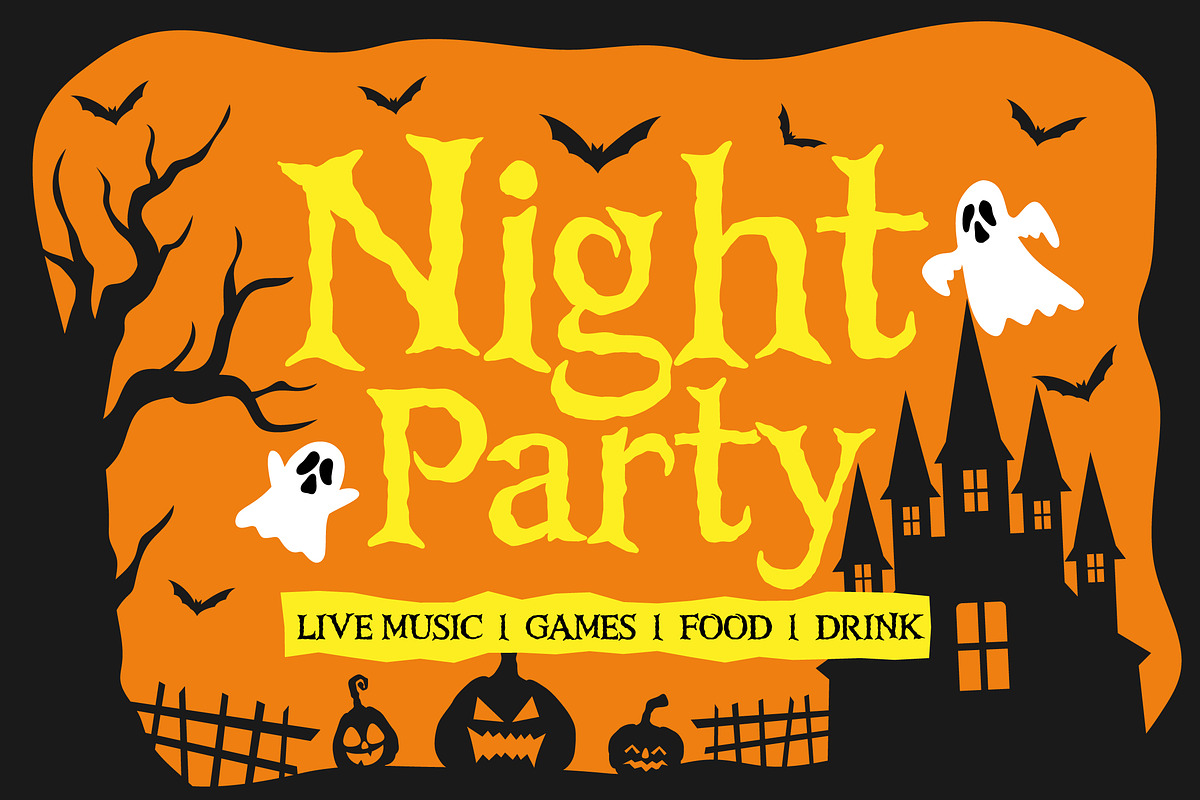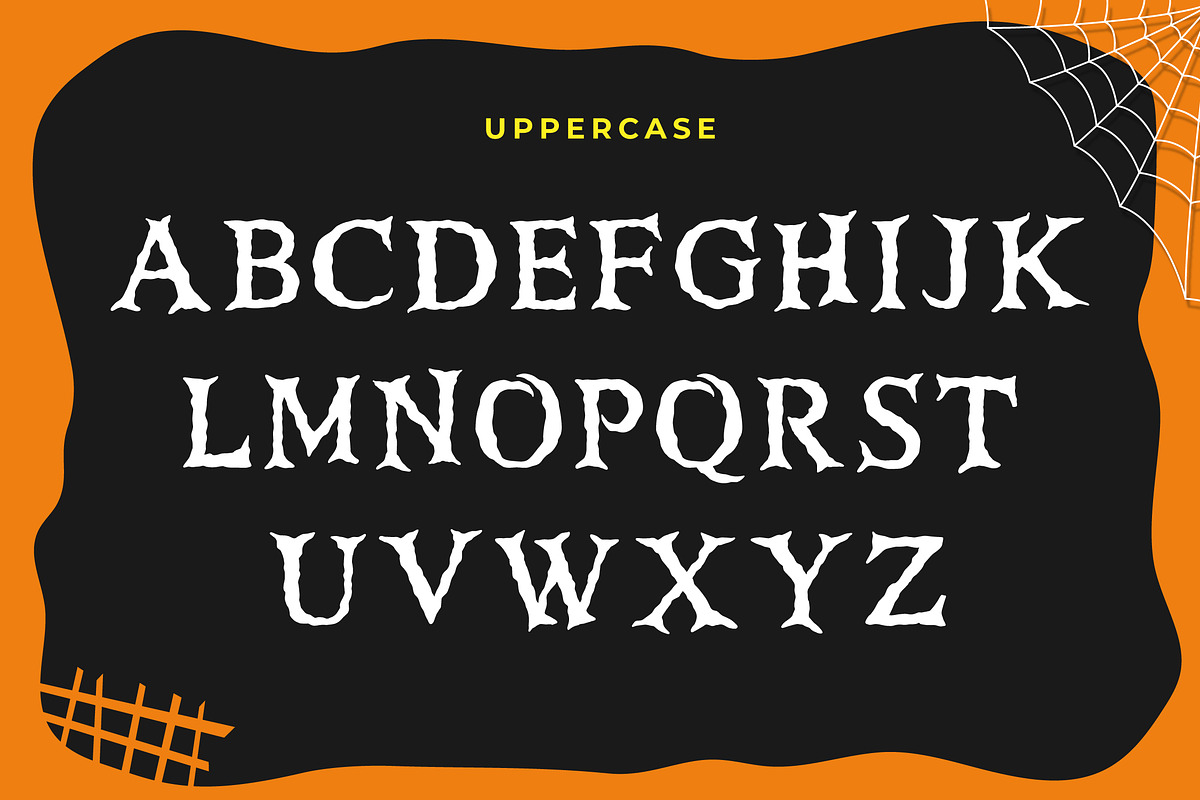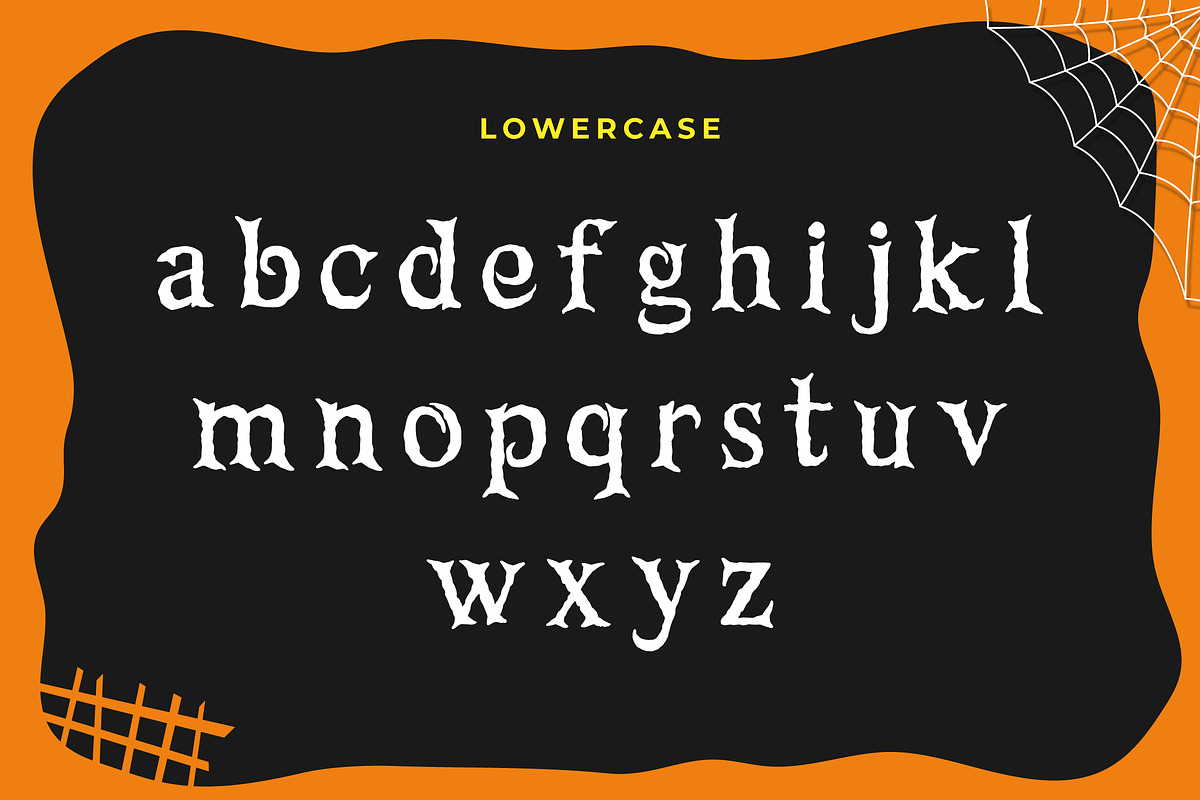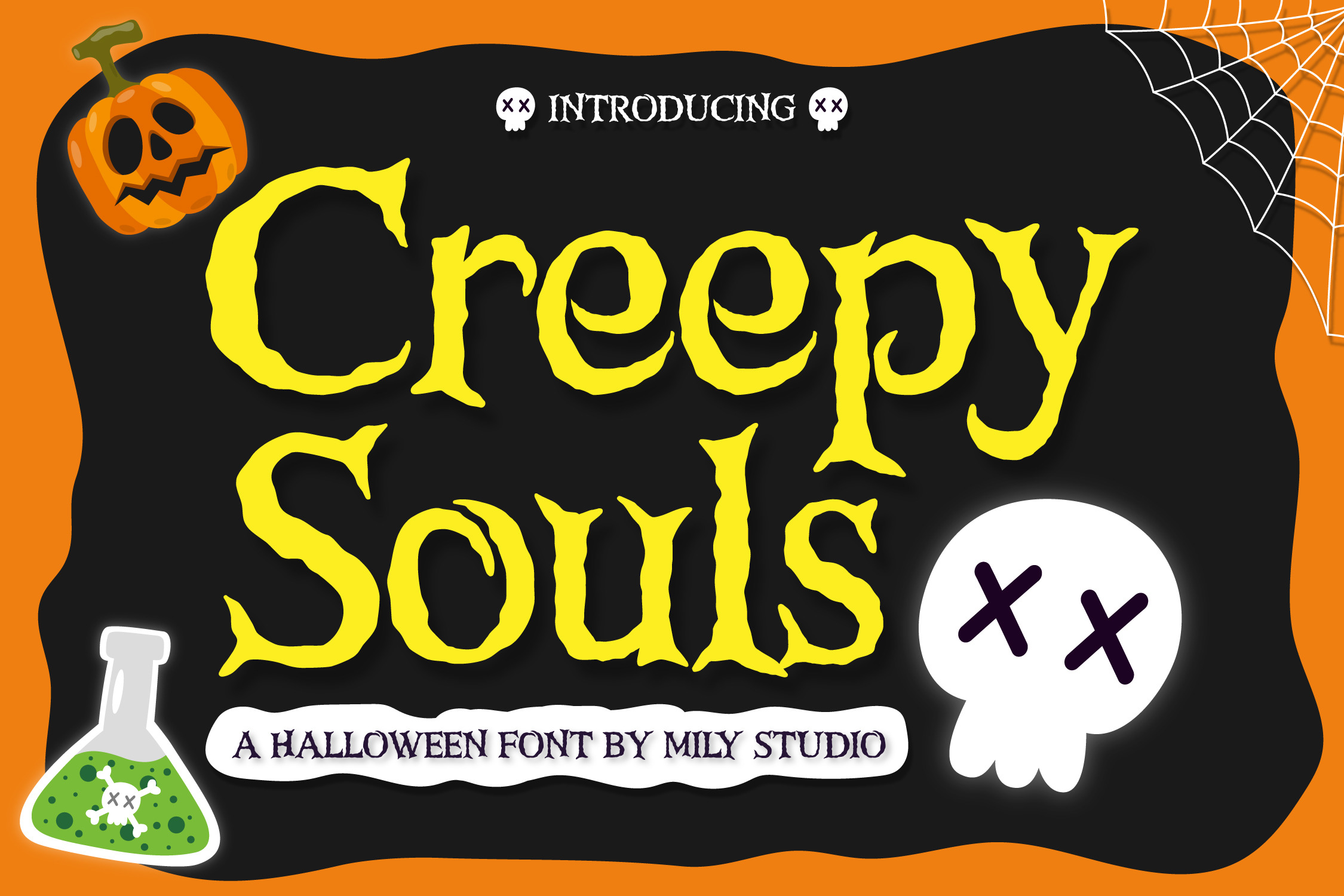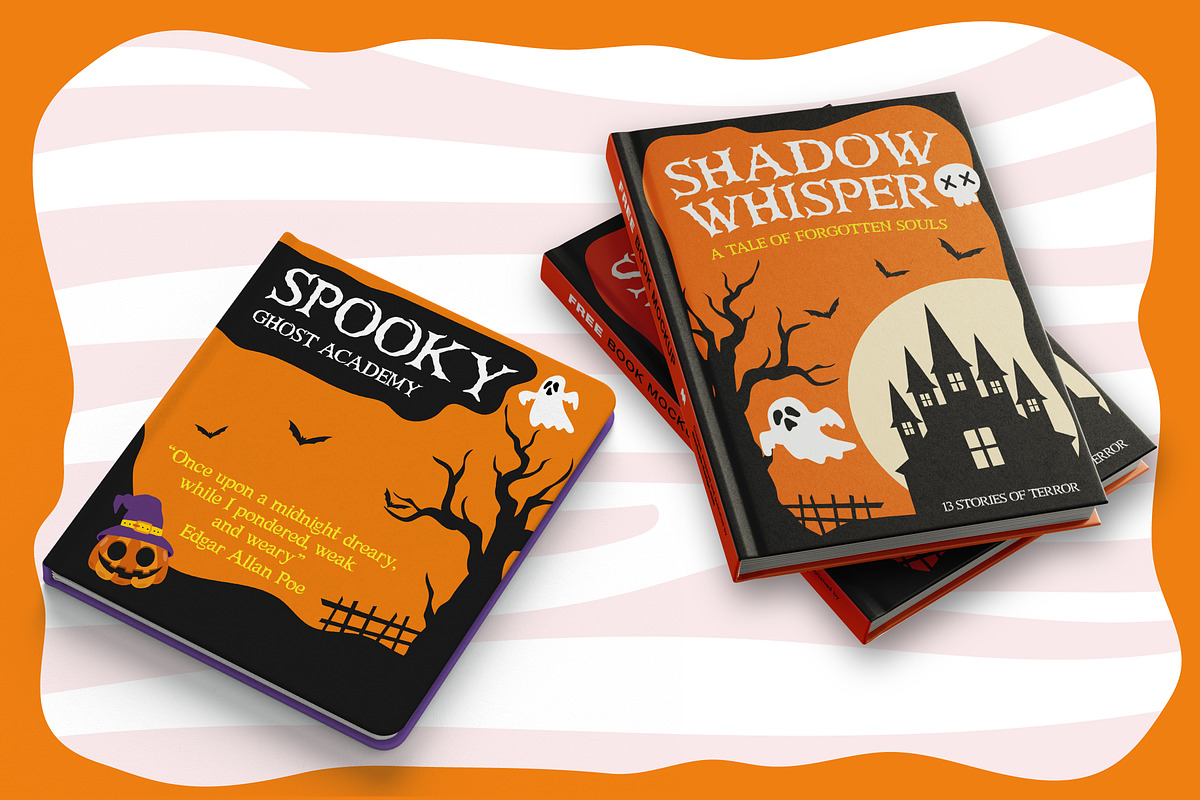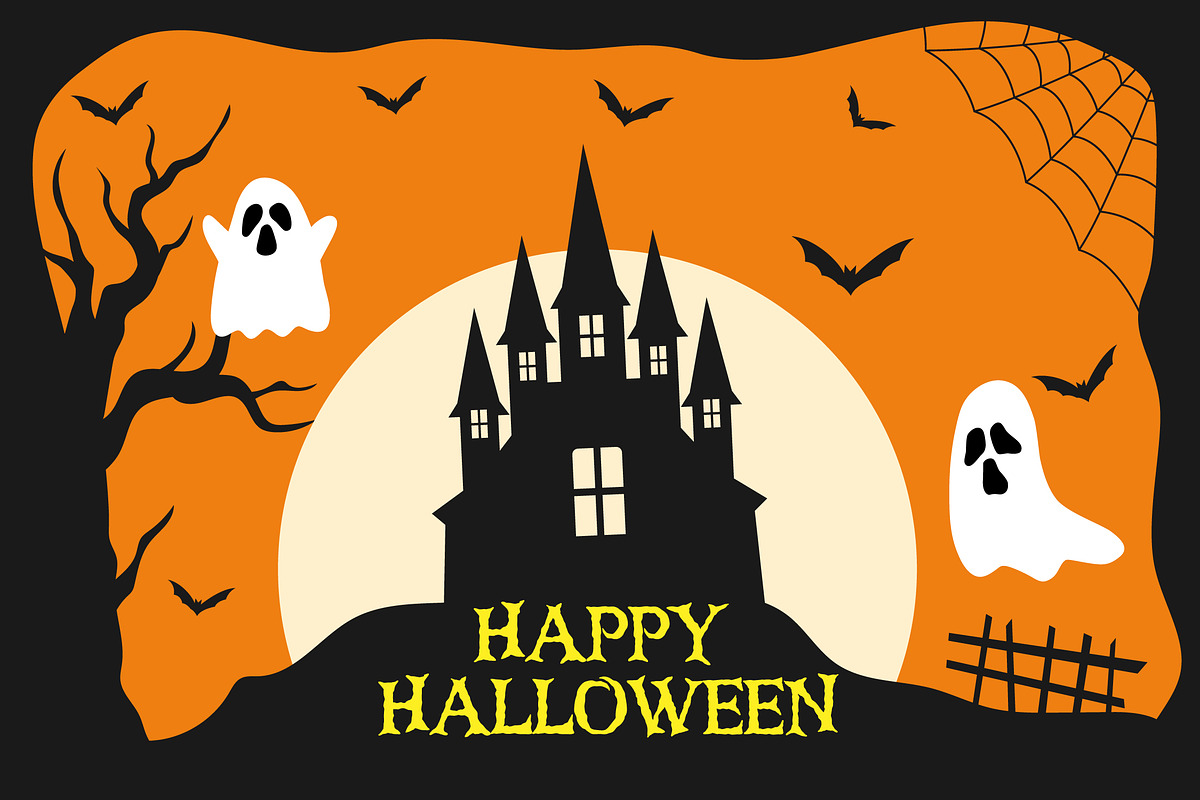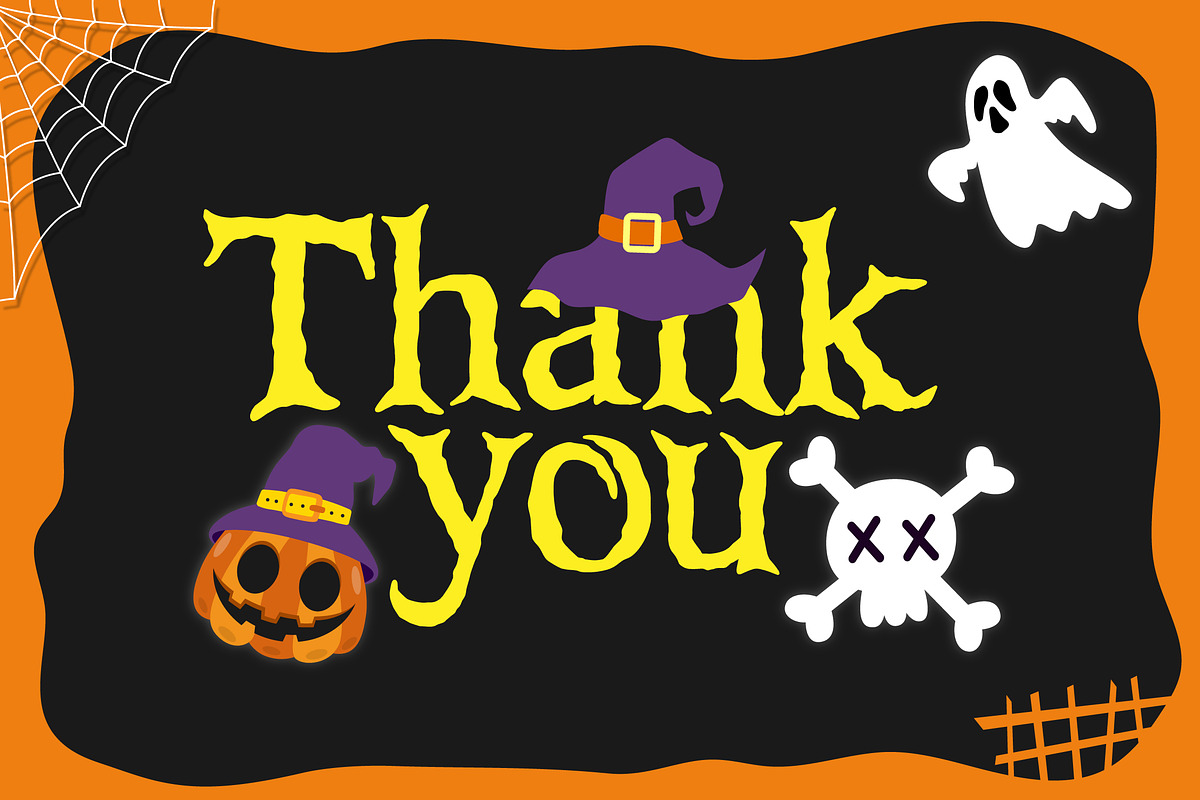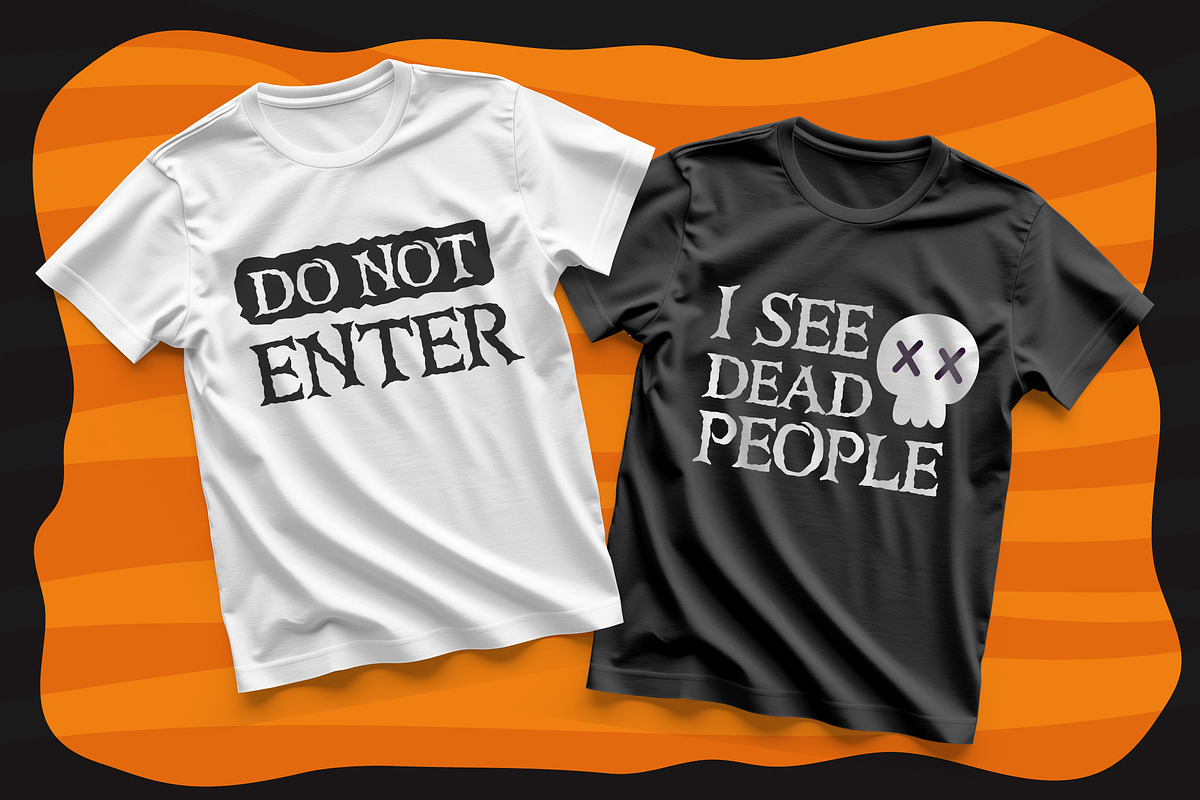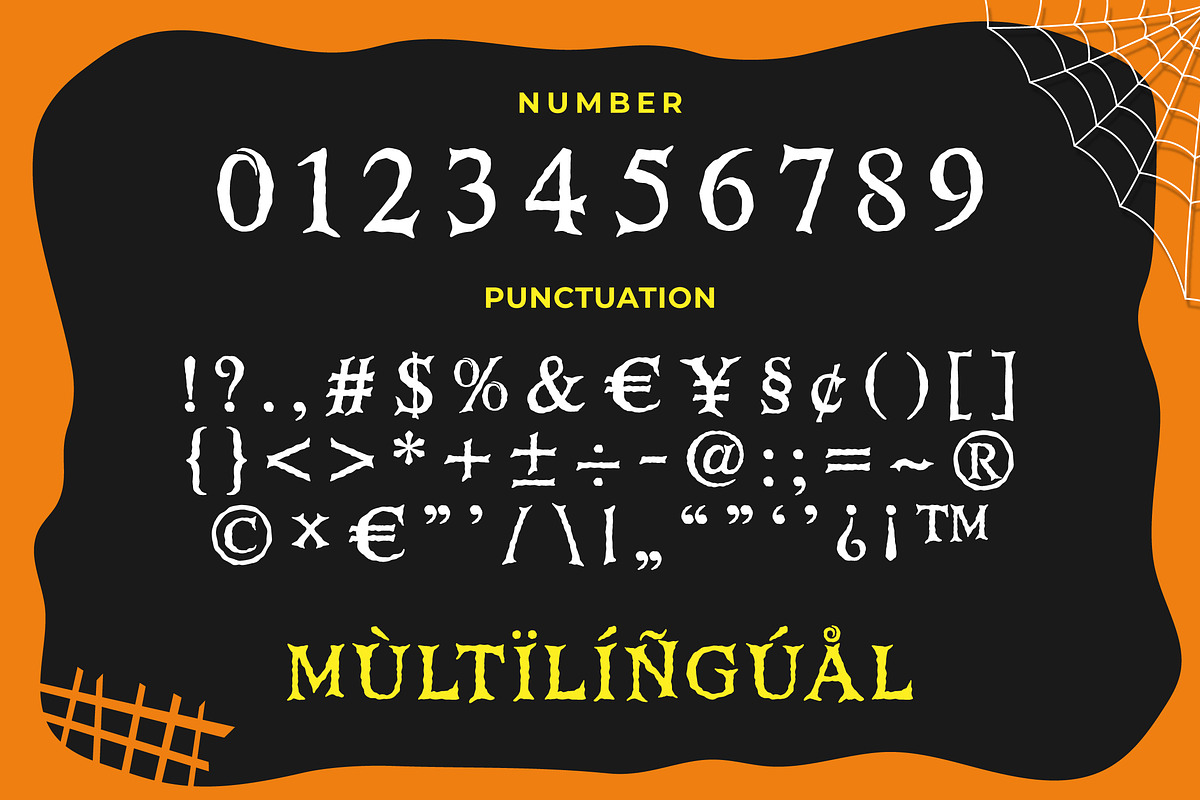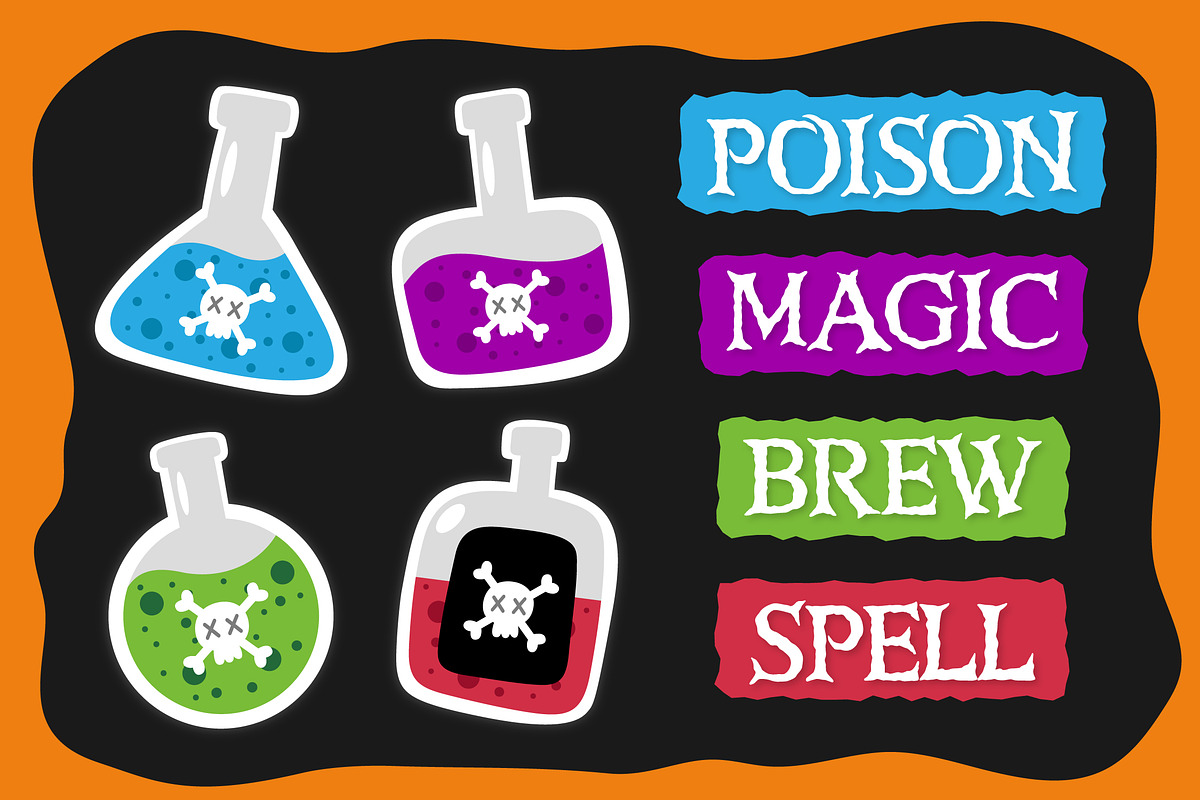
Creepy Souls - Halloween Font
Creepy Souls is a bold, rough, and haunting display font designed to dominate your Halloween season. With its distressed edges, slightly wobbly letterforms, and genuinely spooky vibe, this typeface is perfect for creating designs that feel vintage yet strikingly macabre.
BEST FOR :
- Horror Posters and Event Invitations.
- Merchandise (T-shirts), Potion Labels, and Book Covers.
- All your chilling promotional materials.
FONT FEATURES :
- Uppercase & Lowercase.
- Numerals (0-9).
- Punctuation.
- Multilanguage.
Give your designs a magical and terrifying touch with Creepy Souls!